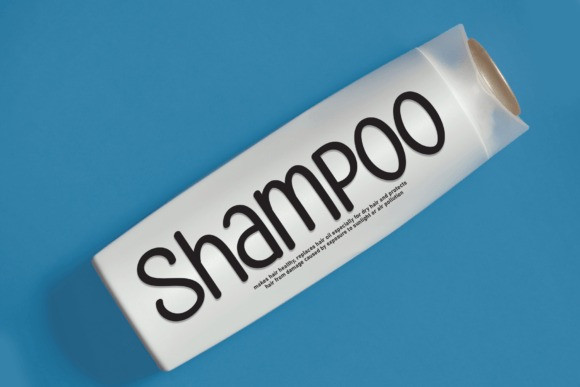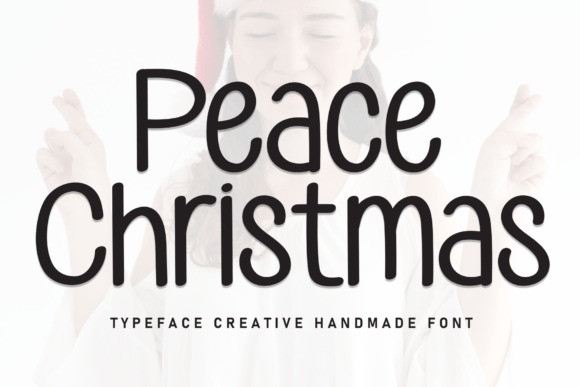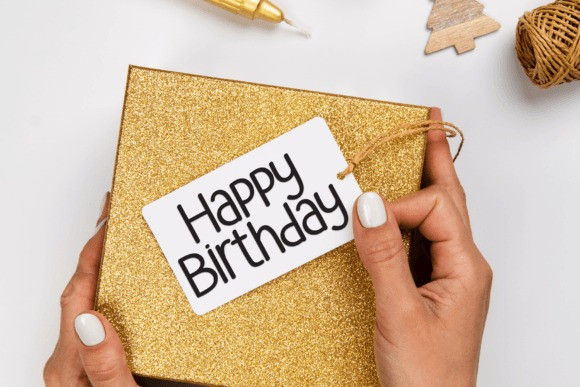
Peace Christmas Font
Peace Christmas is a sweet and friendly handwritten display font. Cute and fun, this font is ideal for writing wedding invitations, cards, or any other design that might need a fun touch!